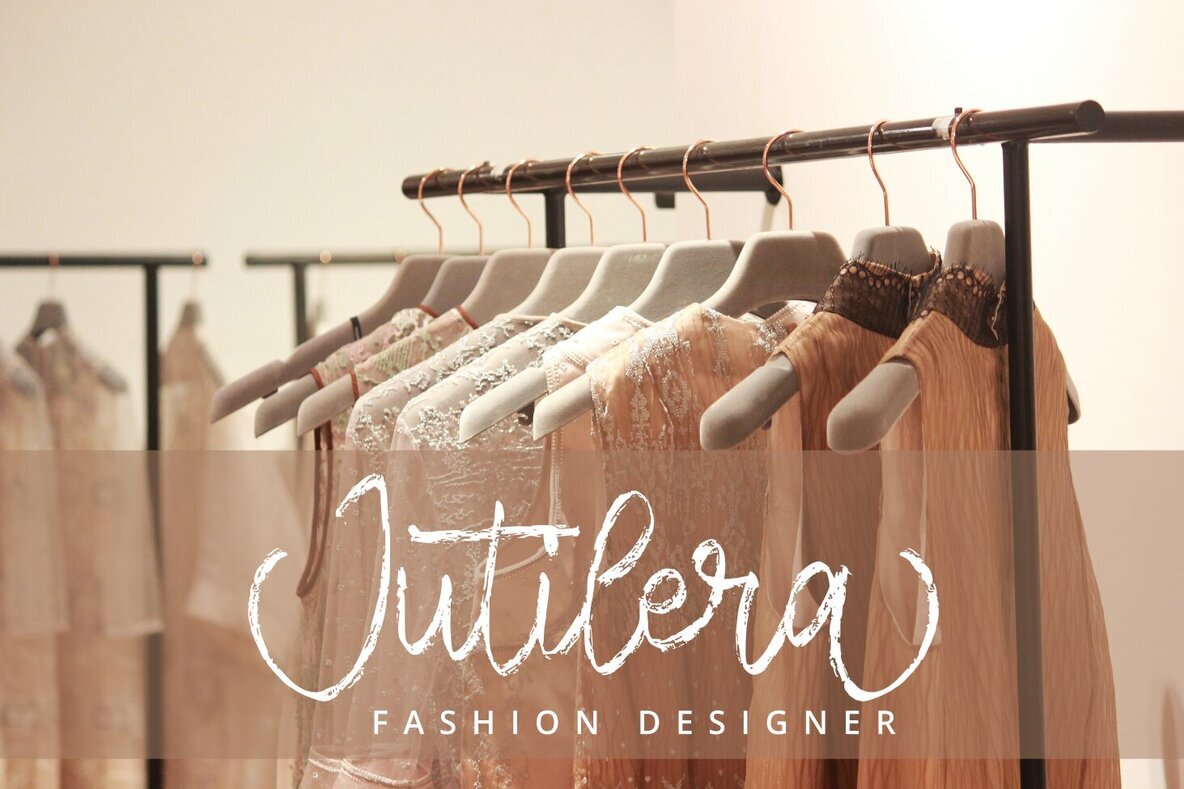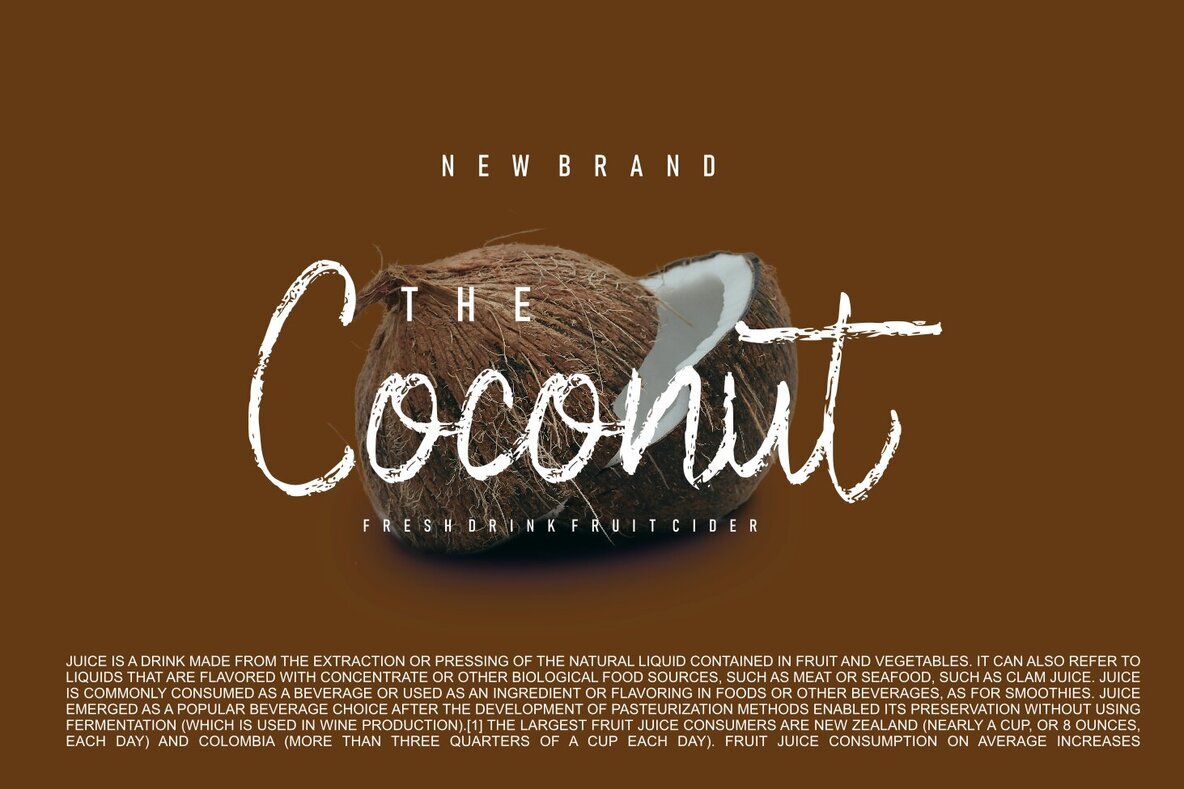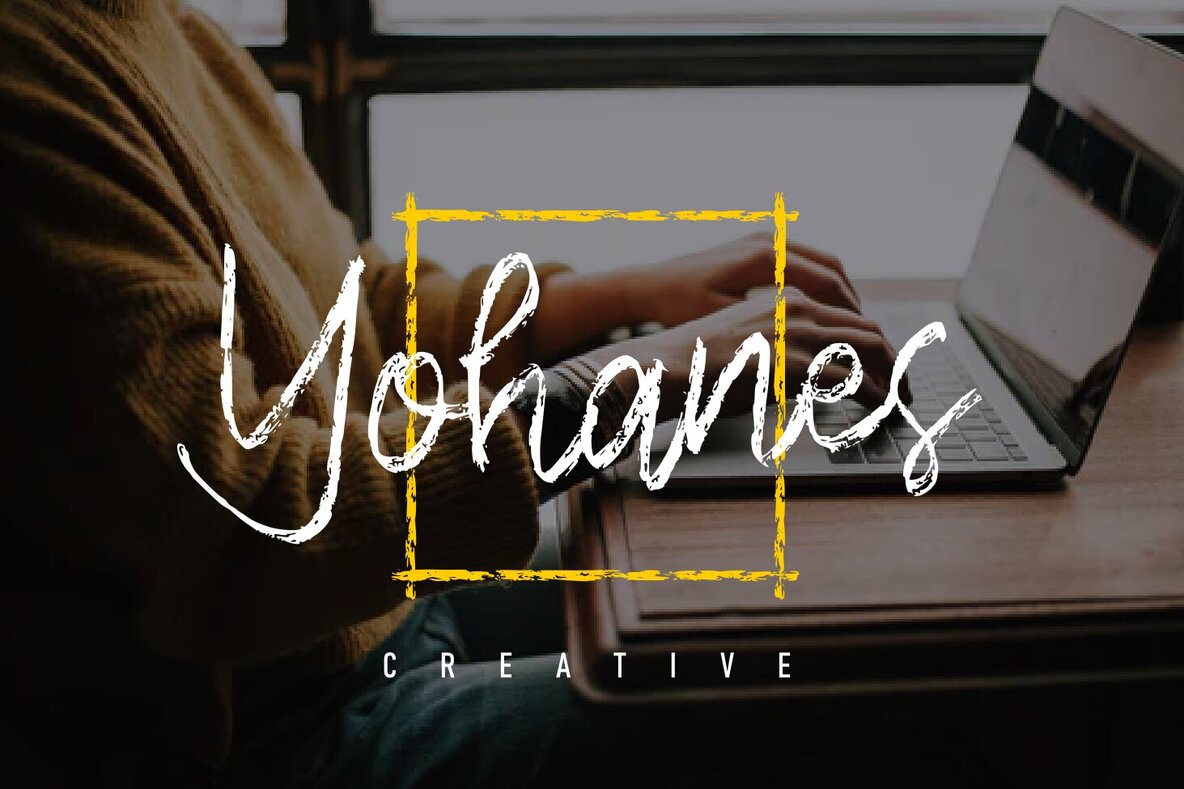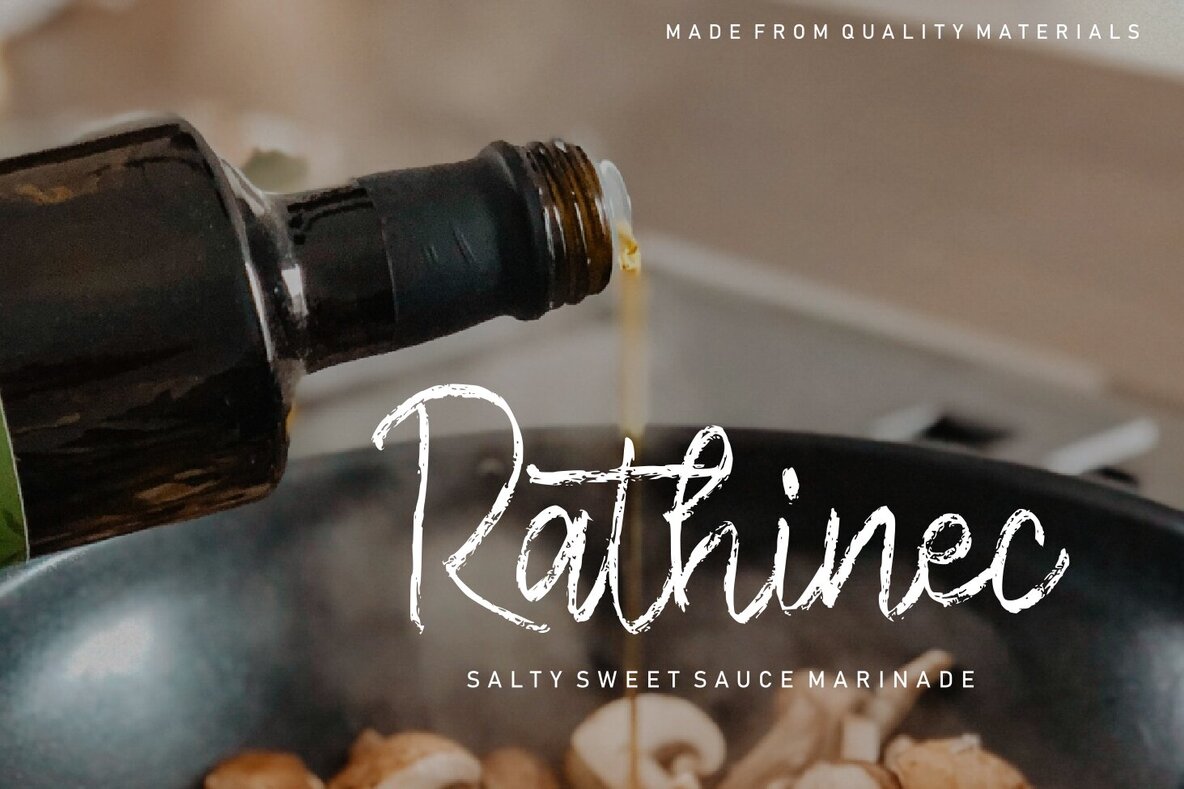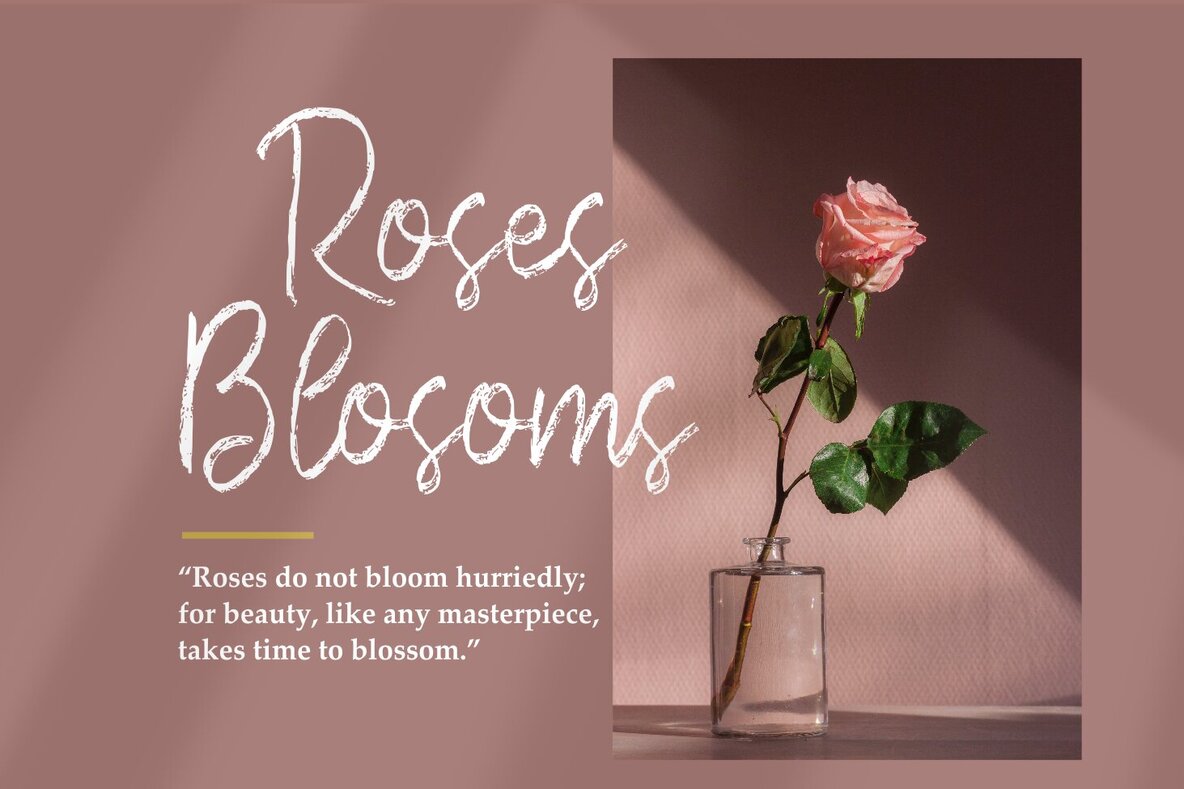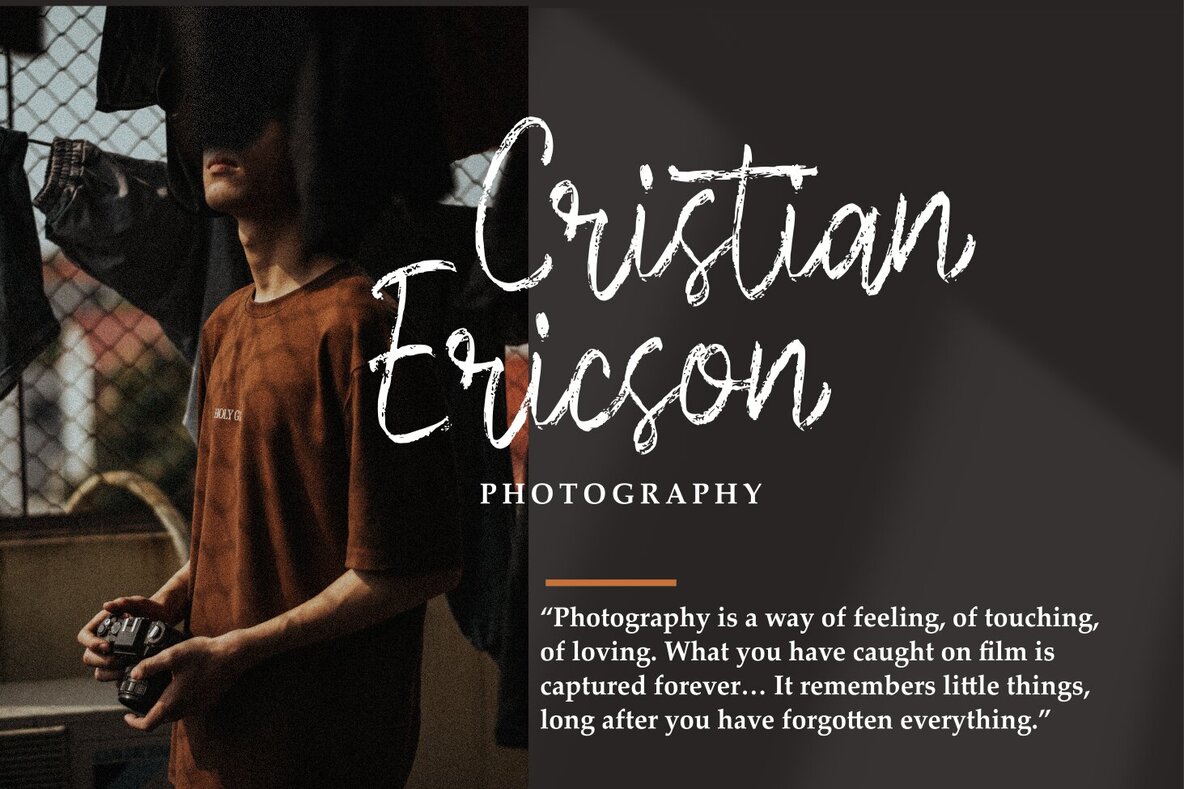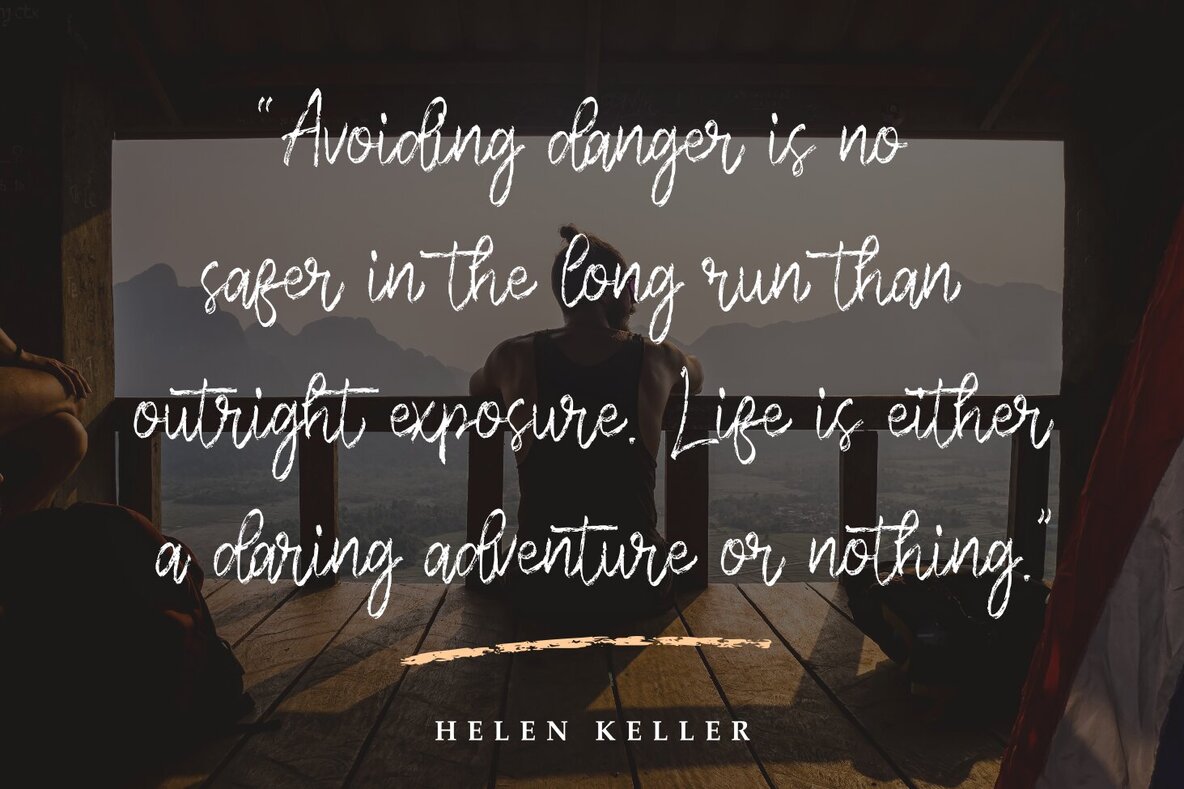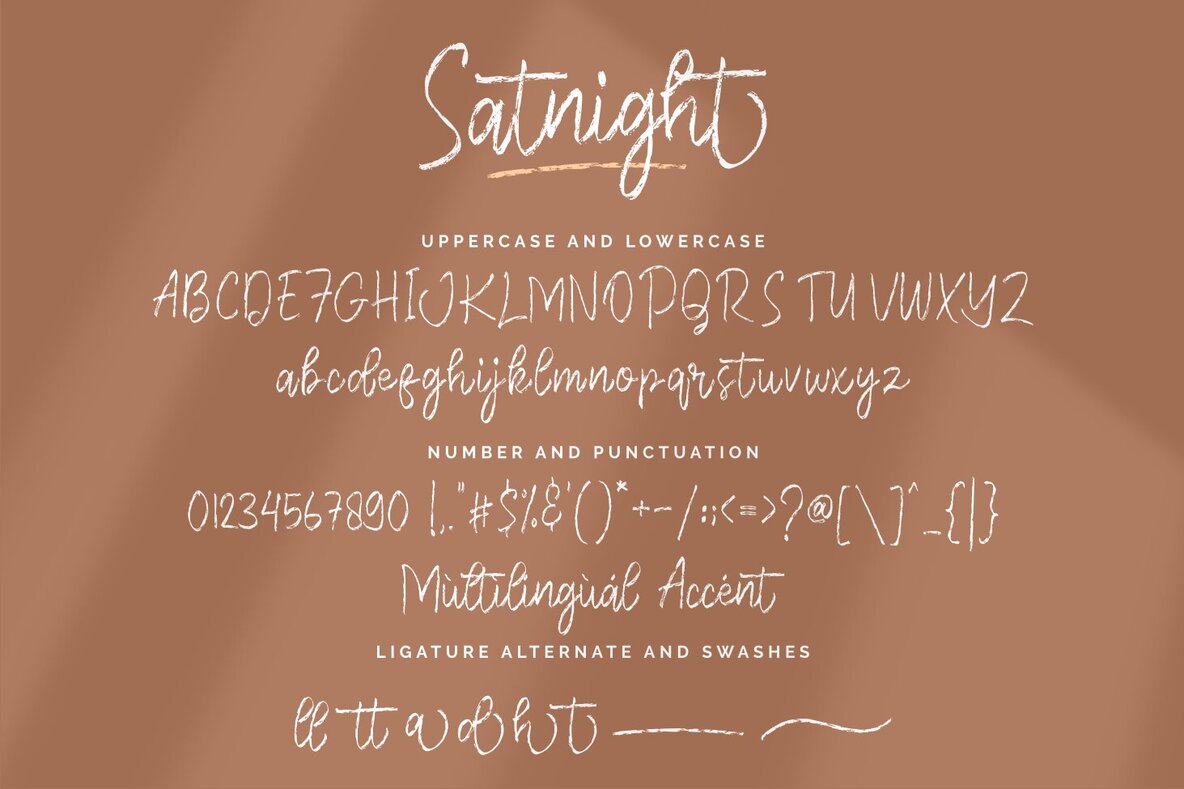
Satnight Font
Satnight Regular
Satnight is a beautifully crafted handwritten font characterized by its minimal texture. Designed on smooth paper, it offers a clean and elegant aesthetic, making it ideal for those who prefer fonts without excessive texturing. This font is versatile and works well for various projects, including: We hope you enjoy using the Satnight font. Your feedback is always appreciated. Thank you for your purchase!Satnight: Elegant Handwritten Font with Minimal Texture